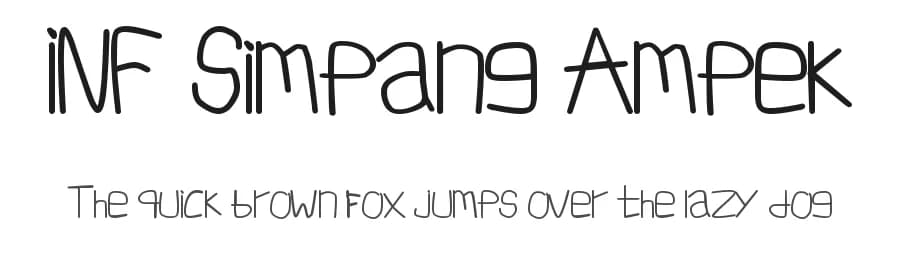
About INF Simpang Ampek Font
INF Simpang Ampek is a script & handwritten font designed by Imran Nasution. It includes 236 glyphs, a regular weight, TTF (TrueType) format, and 209 languages. INF Simpang Ampek is free to download; check the license details on this page before commercial use. Script & handwritten fonts like INF Simpang Ampek work best for wedding invitations, greeting cards, signatures, and elegant branding.
INF Simpang Ampek Font is a script font that shines as a display or heading face. Pair it with a clean sans-serif or serif font for body text β the contrast creates a clear hierarchy while the two styles stay balanced and easy to read.